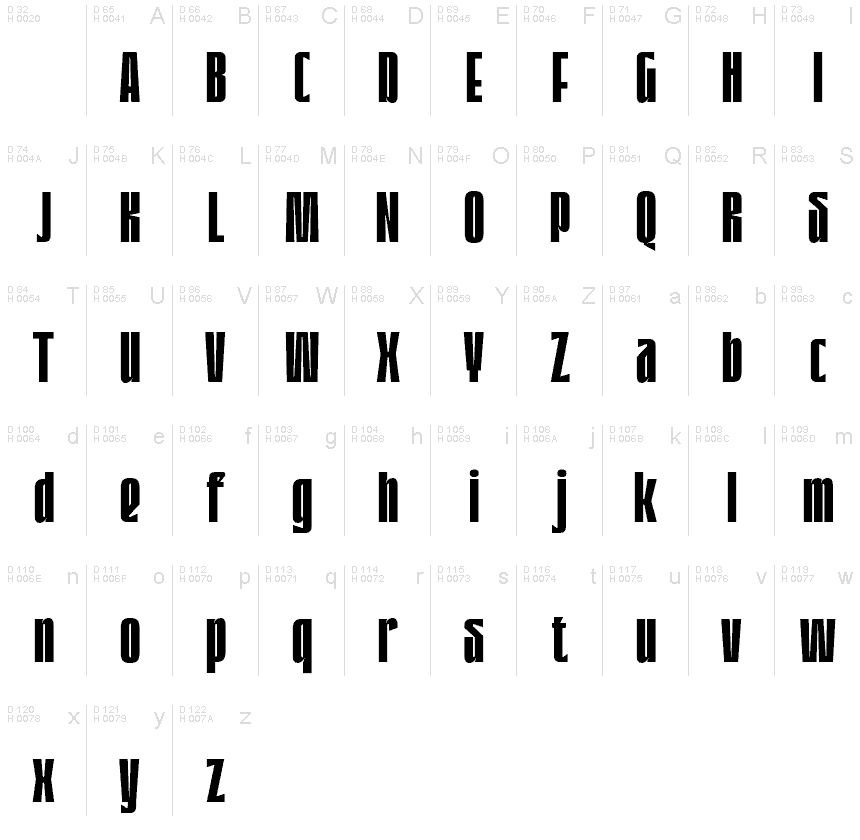
CS Despina Regular Demo
CS Despina font is a modern sans serif from Craft Supply Co. with an angular high-impact design. It carries an avant-garde feel and evokes a retro-futuristic vibe, mixing cues of the past and the present for charm and instant likeability. The condensed width adds to its geometric influence and makes it ideal for projects where space is tight.
All in uppercase letters, CS Despina shines on websites, social media posts, advertisements, packaging, apps, typography art pieces, magazine layouts or even album covers. Posters and book covers could also benefit from this amazing free display font from Craft Supply Co.